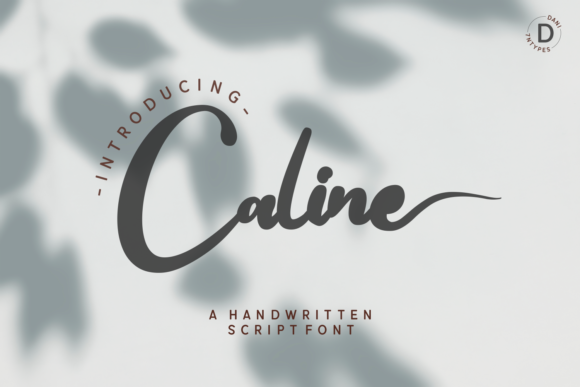
Introduction to Caline Font
Caline is a beautiful brushed handwritten font.
Add this smooth and flowing font to each of your designs and make them stand out .
Key Features of Caline Font